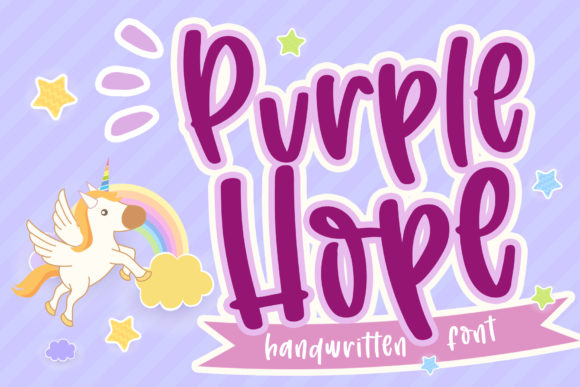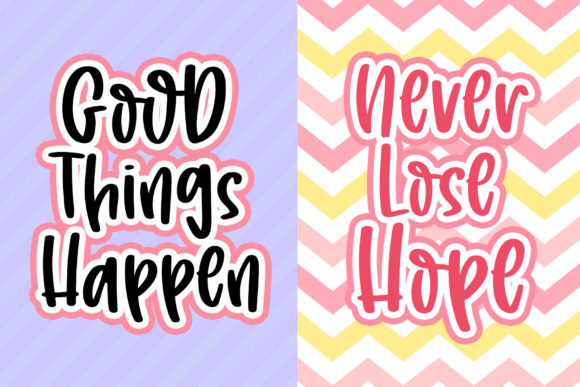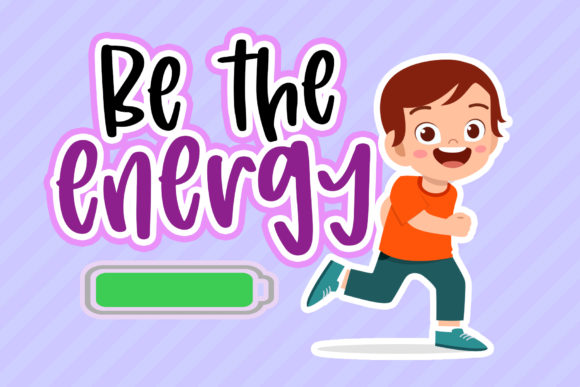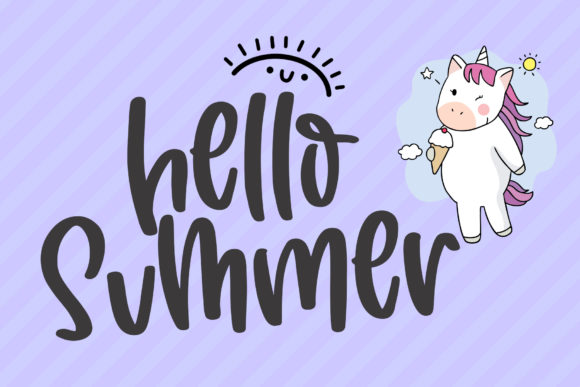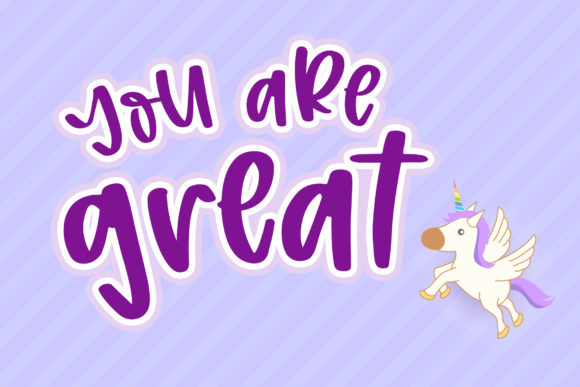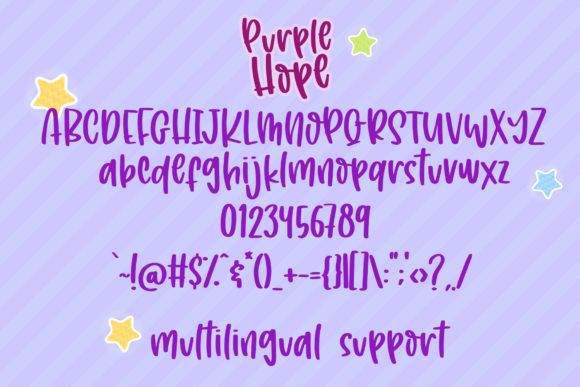
Purple Hope Font
About Purple Hope Font
Purple Hope is a cute handwritten font. This fantastic font is best suited for headlines of all sizes, as well as for blocks of text that have both maximum and minimum variations. Whether it’s for web, print, moving images or anything else – Purple Hope will look spectacular.